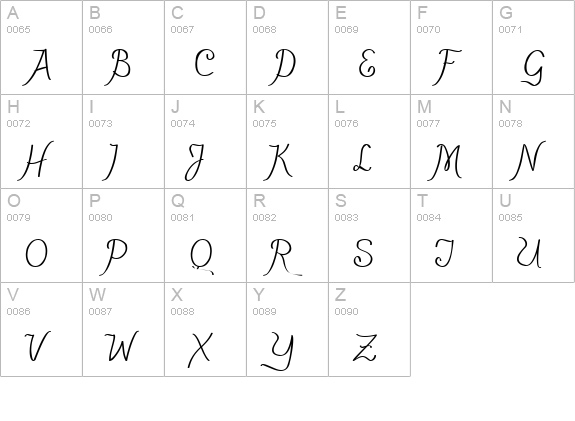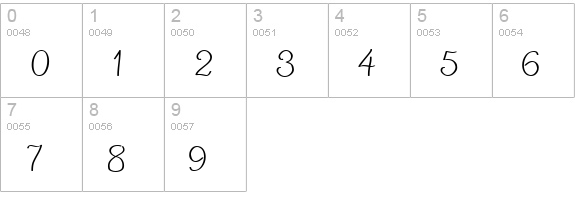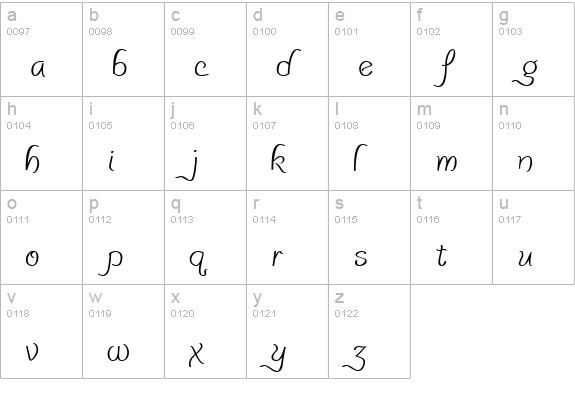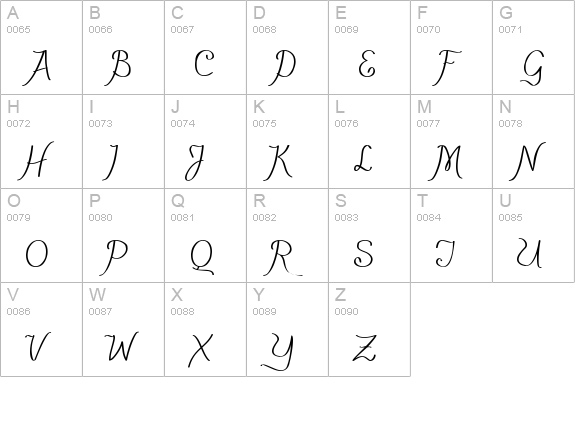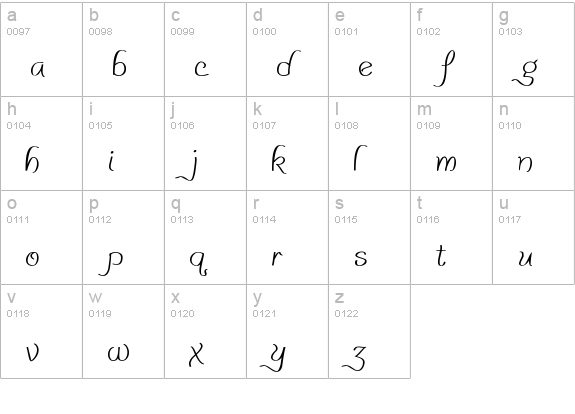
PensleCaligraf Regular Font Details
PensleCaligraf Regular is the standard, neutral variant in the PensleCaligraf typeface family \xE2\x80\x94 well suited to general body text, paragraphs, and standard typographic work.
PensleCaligraf Regular is a beautifully crafted font that is perfect for adding an elegant touch to your designs. With its smooth and flowing strokes, this font exudes a sense of sophistication and grace. Whether you are creating wedding invitations, personalized stationery, or simply want to add a touch of class to your logo, PensleCaligraf Regular is the ideal choice. What makes this font even more appealing is the fact that it is completely free to download. Yes, you read that right – you can access this stunning font without spending a single penny. Thanks to FontsMarket.com, you can easily get your hands on PensleCaligraf Regular and start using it in your projects right away. Not only does this font offer a beautiful and unique style, but it also provides versatility in its usage. Its timeless appeal makes it suitable for a wide range of design purposes, from formal invitations to modern branding. PensleCaligraf Regular is sure to elevate any project, giving it a touch of sophistication and professionalism. So why wait? Take advantage of this incredible opportunity to download PensleCaligraf Regular for free at FontsMarket.com. Join the countless designers who have already discovered the beauty and versatility of this font. Enhance your designs and make a lasting impression with PensleCaligraf Regular.